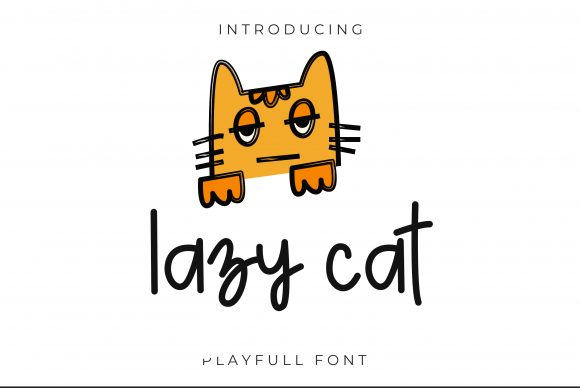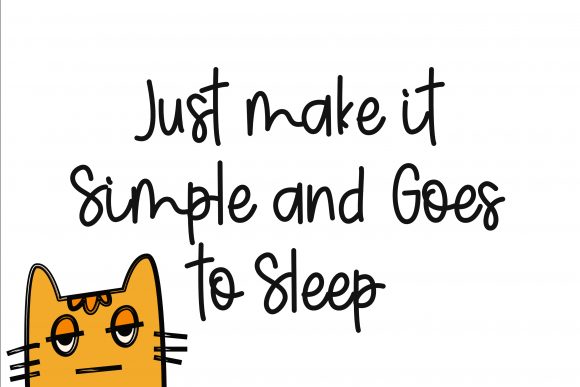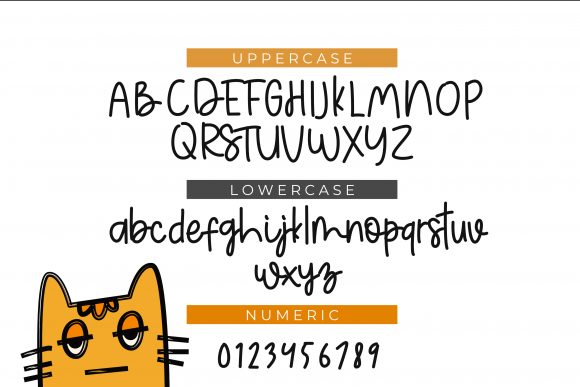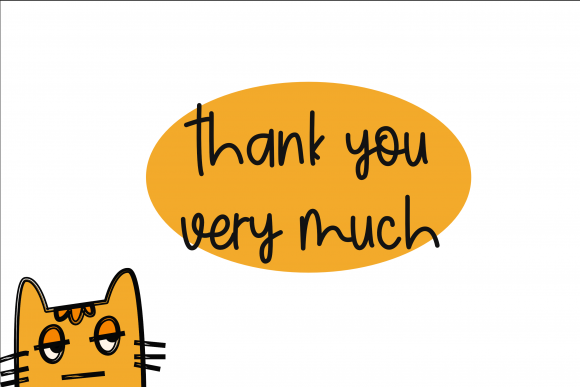
Lazy Cat Font
About Lazy Cat Font
Lazy Cat is a modern, quirky and relaxed handwritten font. Whether you use it for cartoon related designs, children games or just any creation that requires a lovely touch, this font will be an amazing choice.